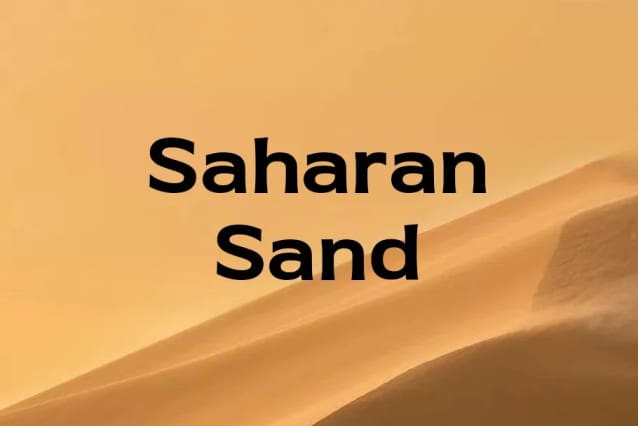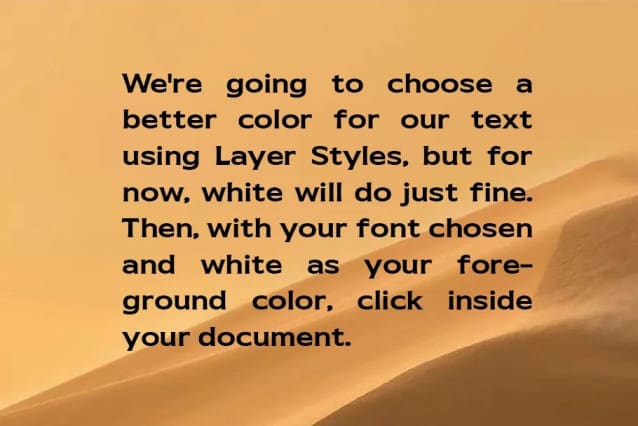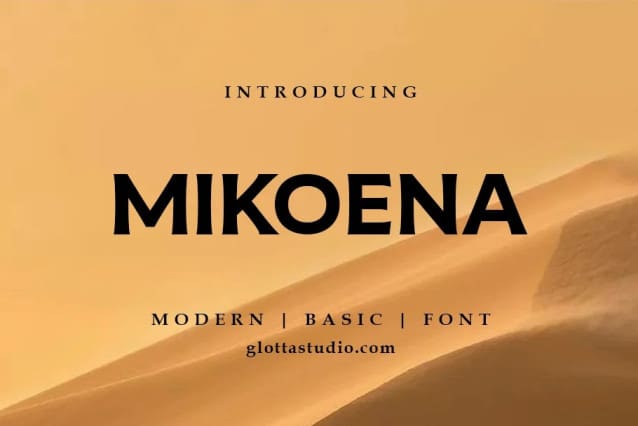
Mikoena Font
Mikoena Font is classic font it’s looks cowboy text, Americans, classy and easy to use. Mikoena is the great choice for watermark on movie industry, poster design, quotes, album cover, business card and many other design project. Mikoena is here to make your work or your business to high level!!! Features